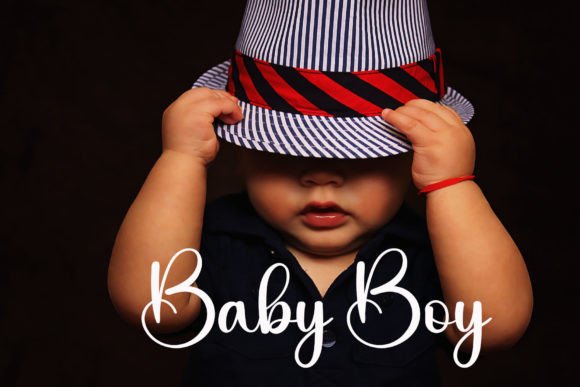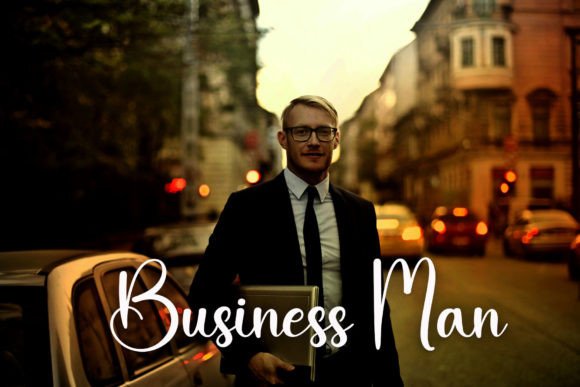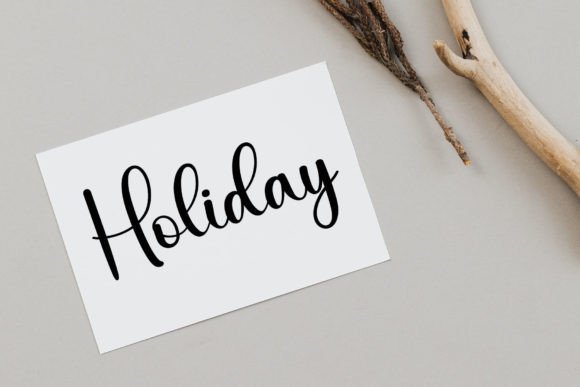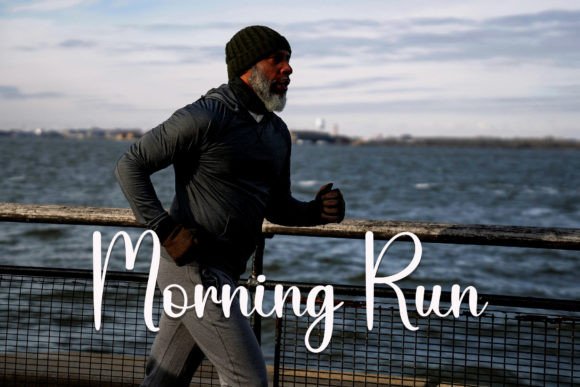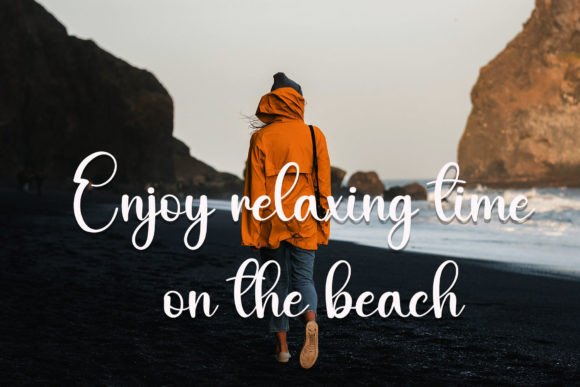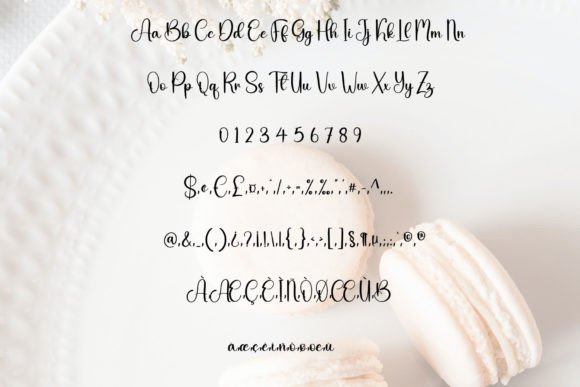
Biscuits Font: The Sweet Addition to Your Design Projects
Are you looking for a font that can add a touch of luxury and sweetness to your design projects? Look no further than the Biscuits font! This beautiful handwritten font is sure to make your designs stand out with its unique and elegant characters.
What is Biscuits Font?
Biscuits is a sweet and beautiful handwritten font that features characters that dance along the baseline. This distinctive feature gives the font a playful and whimsical feel, making it perfect for designs that require a touch of personality. The font is designed to add a luxury spark to any design project, making it ideal for crafters, designers, and anyone looking to create stunning visuals.
Key Features of Biscuits Font
- Handwritten style: Biscuits font is a handwritten font that has a personal and unique feel to it.
- Dancing characters: The characters in Biscuits font dance along the baseline, giving the font a playful and whimsical feel.
- Luxury feel: The font is designed to add a touch of luxury to any design project, making it perfect for high-end designs.
- Versatile: Biscuits font can be used for a wide range of design projects, from branding and packaging to wedding invitations and more.
Why Use Biscuits Font?
There are many reasons why you should consider using Biscuits font in your design projects. Here are a few:
- Adds personality to your designs: Biscuits font has a unique and playful feel that can add personality to your designs.
- Perfect for luxury designs: The font’s luxury feel makes it perfect for high-end designs that require a touch of sophistication.
- Easy to read: Despite its playful feel, Biscuits font is easy to read, making it perfect for designs that require a lot of text.
- Versatile: The font can be used for a wide range of design projects, from digital designs to print materials.
How to Use Biscuits Font
Using Biscuits font is easy! Here are a few tips to get you started:
- Pair it with other fonts: Biscuits font pairs well with other fonts, such as sans-serif fonts, to create a unique and interesting design.
- Use it for headings: The font’s playful feel makes it perfect for headings and titles.
- Add embellishments: Consider adding embellishments, such as flourishes or swashes, to give your design an extra touch of luxury.
Design Project Ideas Using Biscuits Font
Biscuits font can be used for a wide range of design projects. Here are a few ideas to get you started:
- Branding and packaging: Use Biscuits font to create luxurious branding and packaging designs.
- Wedding invitations: The font’s elegant feel makes it perfect for wedding invitations and other wedding stationery.
- Social media graphics: Use Biscuits font to create eye-catching social media graphics that stand out from the crowd.
- Digital and print materials: The font can be used for a wide range of digital and print materials, from brochures to business cards.
Biscuits font is a beautiful and unique handwritten font that can add a touch of luxury and sweetness to your design projects. With its playful feel and elegant characters, it’s perfect for designers and crafters looking to create stunning visuals. Whether you’re working on a branding project, wedding invitation, or social media graphic, Biscuits font is sure to make your design stand out.
So why not give Biscuits font a try? With its versatility and ease of use, it’s the perfect addition to your design toolkit.